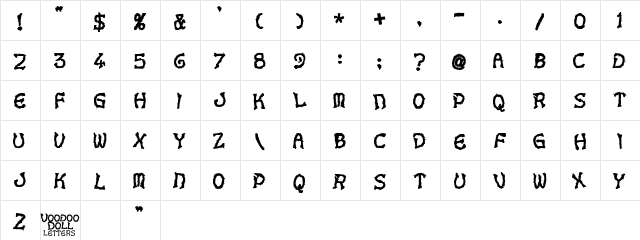
VoodooDollLetters Regular
Design Context for VoodooDollLetters Typeface
VoodooDollLetters is a composed and adaptable typeface that performs quietly and consistently across a wide range of design contexts.